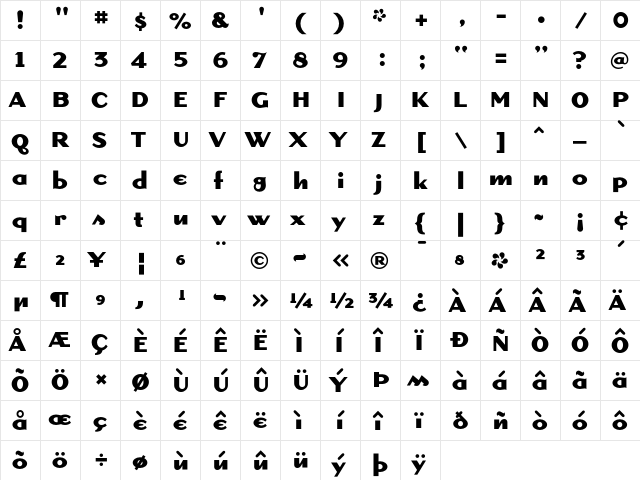
Dogma Bold
Design Context for Dogma Typeface
Dogma takes a measured approach to typography — its balanced proportions and neutral character make it a reliable workhorse for both digital and print work. The heavy weight commands attention and anchors typographic hierarchies.